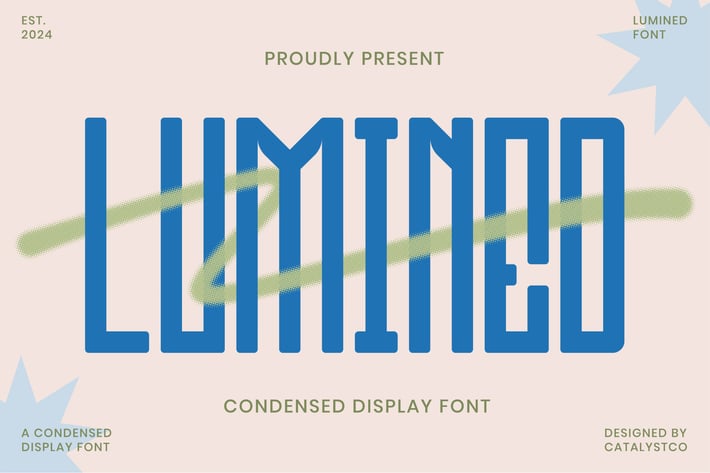
Lumined Condensed Display Font
Lumined is a condensed display font featuring tall geometric proportions and a clean modern structure designed for impactful headlines. Its sharp condensed shape, uniform stroke, and futuristic character forms make it ideal for high-visibility layouts across digital and print media. The typeface blends modern sans-serif aesthetics with technology-driven styling, giving every composition a bold, contemporary presence. Delivered in compatible formats and easy to use for branding, posters, UI design, and editorial layouts.
Lumined is perfect for modern branding, posters, editorial layouts, tech interfaces, professional presentations, startup identities, futuristic visuals, sports & event headlines, website hero text, and bold advertising compositions.